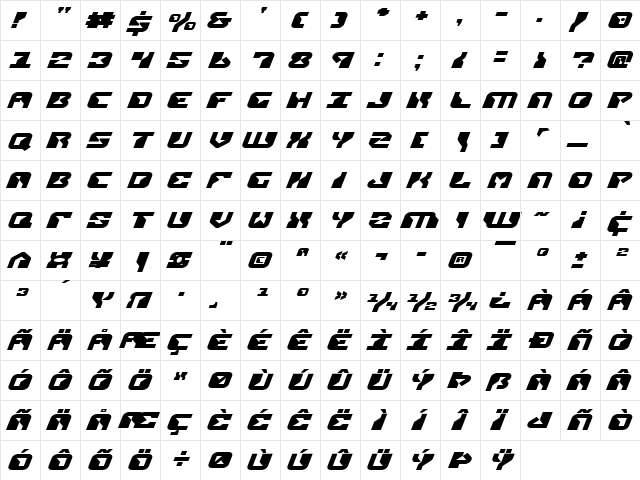
Replicant Expanded Italic Expanded Italic
Design Context for Replicant Expanded Italic Typeface
Replicant Expanded Italic is a composed and adaptable typeface that performs quietly and consistently across a wide range of design contexts. The slanted form adds forward momentum and visual energy.